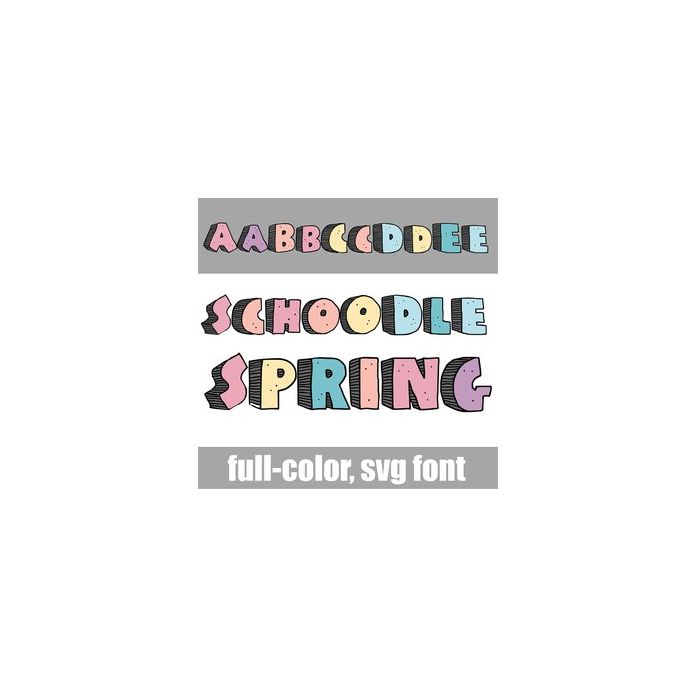
This cute 3d font features a pretty pastel palette that reminds you of spring. There is an alt case w/ additional colors you can access through your system or Silhouette's glyph map.